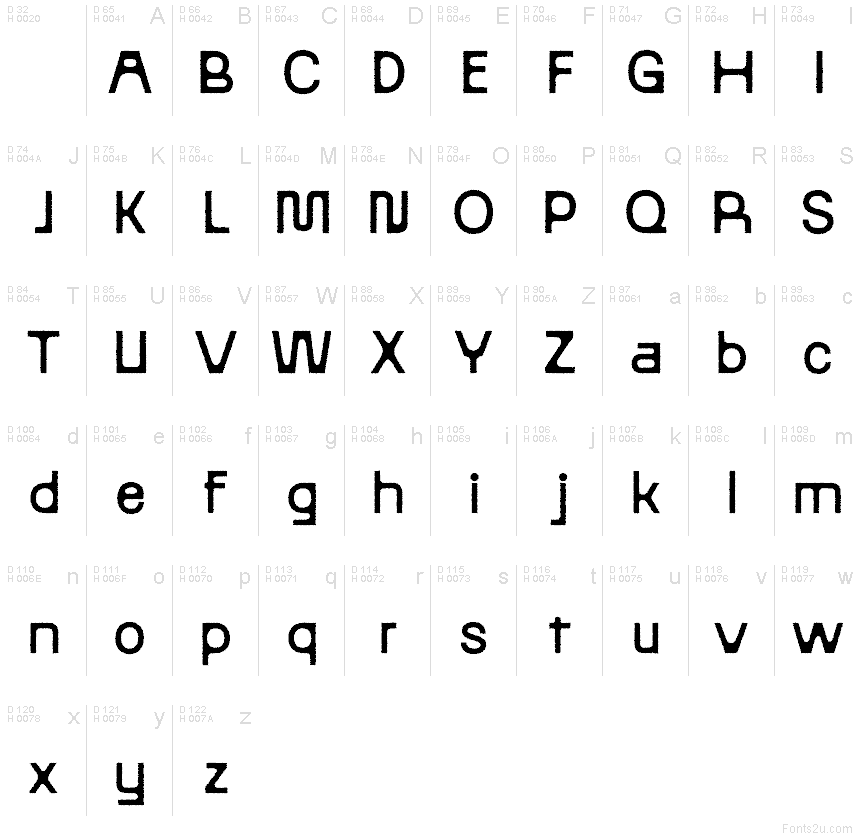
MaretynRough-Regular Demo
Maretyn Rough font is a display font by Craft Supply Co. The modern design has retro vibes and effects that produce a special visual experience to the audience. Its design might feel quirky and wavy, however, it is on the other hand geometric with lots of sharp angles.